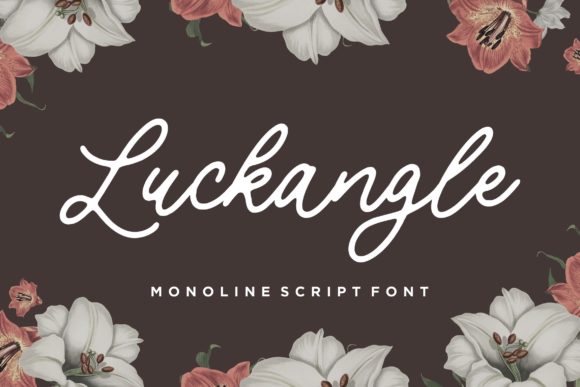
Prepare yourself to embark on a typographic odyssey with Luckangle Font, a breathtaking script font that will elevate your designs to new heights of elegance and sophistication. This masterpiece, meticulously crafted by Balpirick, is a symphony of flowing lines and graceful curves, exuding an aura of timeless beauty.
Immerse yourself in the world of Luckangle Font, where every letter is a work of art, carefully designed to capture the essence of modern calligraphy. Let your imagination soar as you explore the endless possibilities of this remarkable font. Whether you're a seasoned designer or just starting your creative journey, Luckangle Font will guide you towards stunning results.
Discover the magic of Luckangle Font and transform your designs into captivating masterpieces. Its versatility knows no bounds, seamlessly adapting to a myriad of projects. From sleek logos and branding materials to eye-catching social media graphics and wedding invitations, Luckangle Font adds a touch of refinement and elegance to every creation.
Unleash your creativity and let Luckangle Font take center stage in your designs. Its delicate strokes and enchanting curves will captivate your audience, leaving a lasting impression of artistry and sophistication. With Luckangle Font, you hold the key to unlocking a world of typographic wonders, where your designs will shine with brilliance and distinction.
Journey into the world of Luckangle Font today and unlock the secrets of typographic excellence.